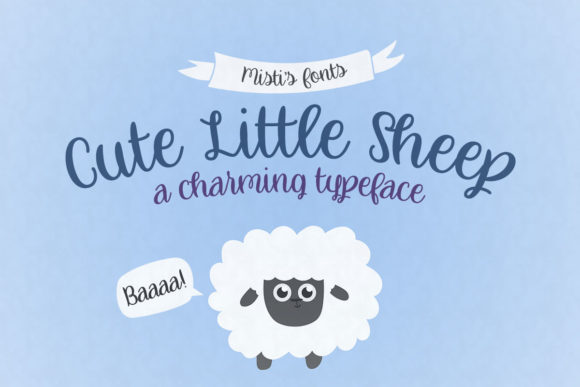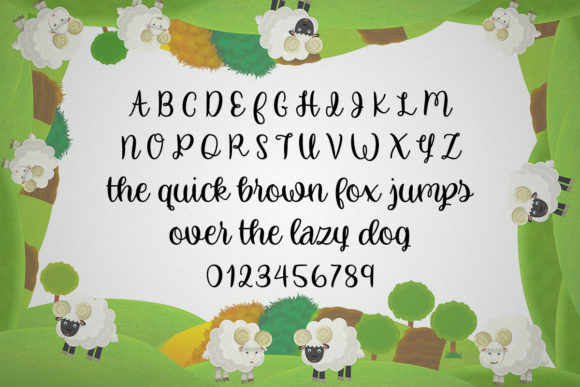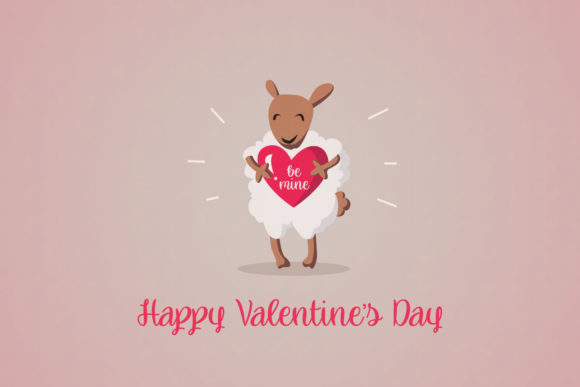
Cute Little Sheep Font
About the Cute Little Sheep Font
The wait is over! The incredible Cute Little Sheep Font is now available for your design toolkit. Cute Little Sheep is a charming and cursive script font. Its friendly feel makes this font incredibly versatile, fitting a wide range of contexts. Add it to your creative ideas and notice how it makes them stand out!
Cute Little Sheep’s friendly, informal style works best for projects needing a touch of whimsy. Ideal applications include children’s books, invitations, branding for boutiques or cafes with a playful atmosphere, and short social media captions. Avoid using it for large blocks of text, body copy, or UI elements where readability is paramount; its cursive nature can hinder legibility at smaller sizes.
This font pairs well with clean sans-serif fonts like Open Sans or Lato for a balanced contrast, creating a sophisticated yet approachable feel. For a more playful aesthetic, consider pairing it with a rounded geometric sans-serif such as Poppins or a similarly light-hearted display font.
The font’s core personality is undeniably cheerful and approachable, lending itself to brands and projects targeting a young, light-hearted audience. Its informal charm, however, should be carefully considered within the overall design to avoid appearing unprofessional or childish in contexts demanding seriousness.
Cute Little Sheep Font Usage Examples
Cute Little Sheep Font Example